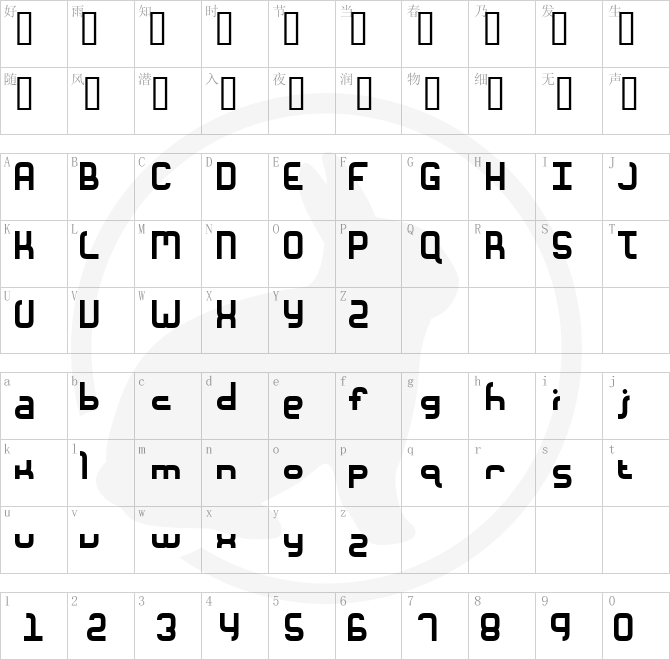
- Font Name:m_Macaroni
- Subfamily:a_ConceptoTitulNrCmGr
- Full Name:m_Macaroni
- PostScript:m_Macaroni
m_Macaroni.ttf is a very beautiful artistic font, m_Macaroni.ttf is widely used in the design and printing of various books and pictures,m_Macaroni.ttf has a strong visual impact,m_Macaroni.ttf is a commonly used font in newspapers, magazines and books, and is used in posters, e-commerce Poster design, store design, logo design, font design and other fields.m_Macaroni.